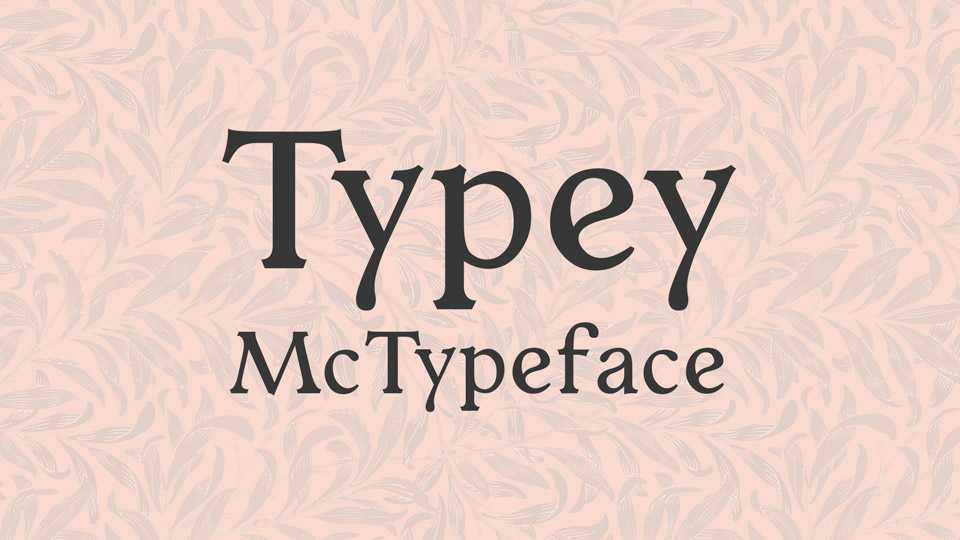
Typey McTypeface Font Family › Fontesk – Download Grátis
Download Typey McTypeface, an elegant vintage serif font family in Regular and Italic styles. Typey McTypeface looks great for editorial use.
Designer: Paul James Miller